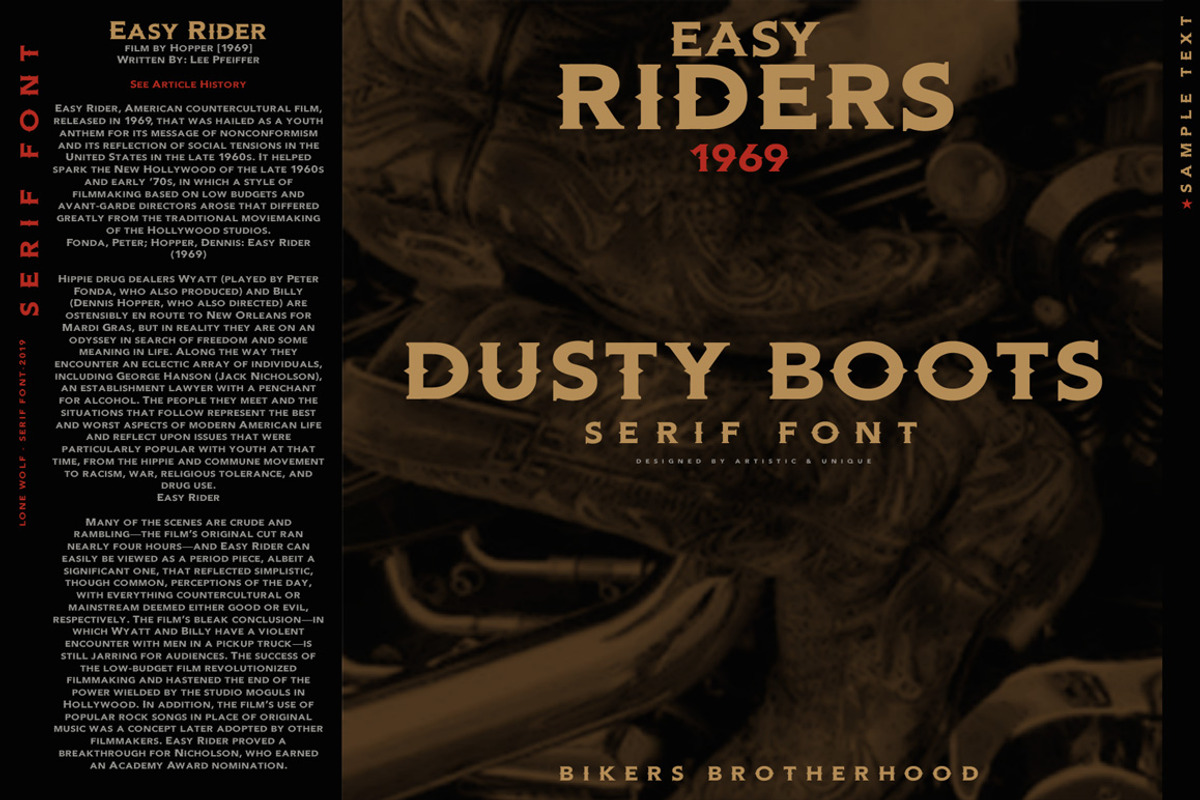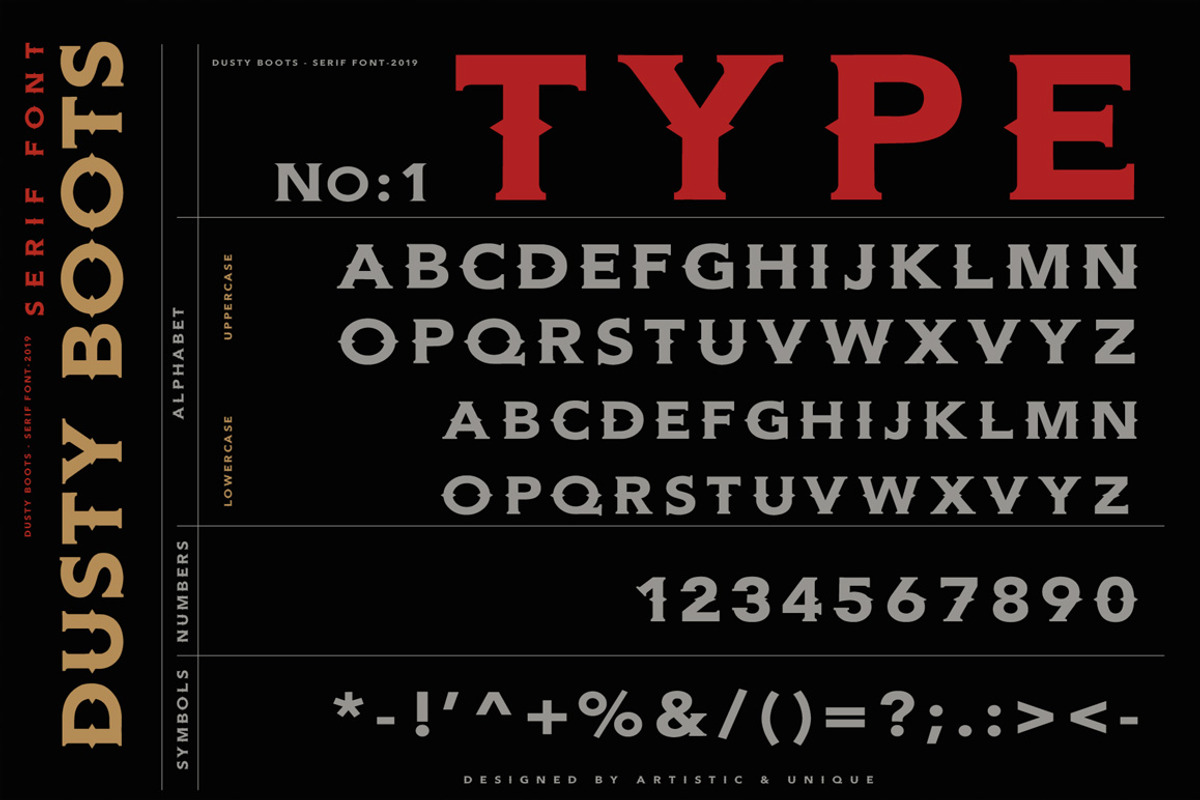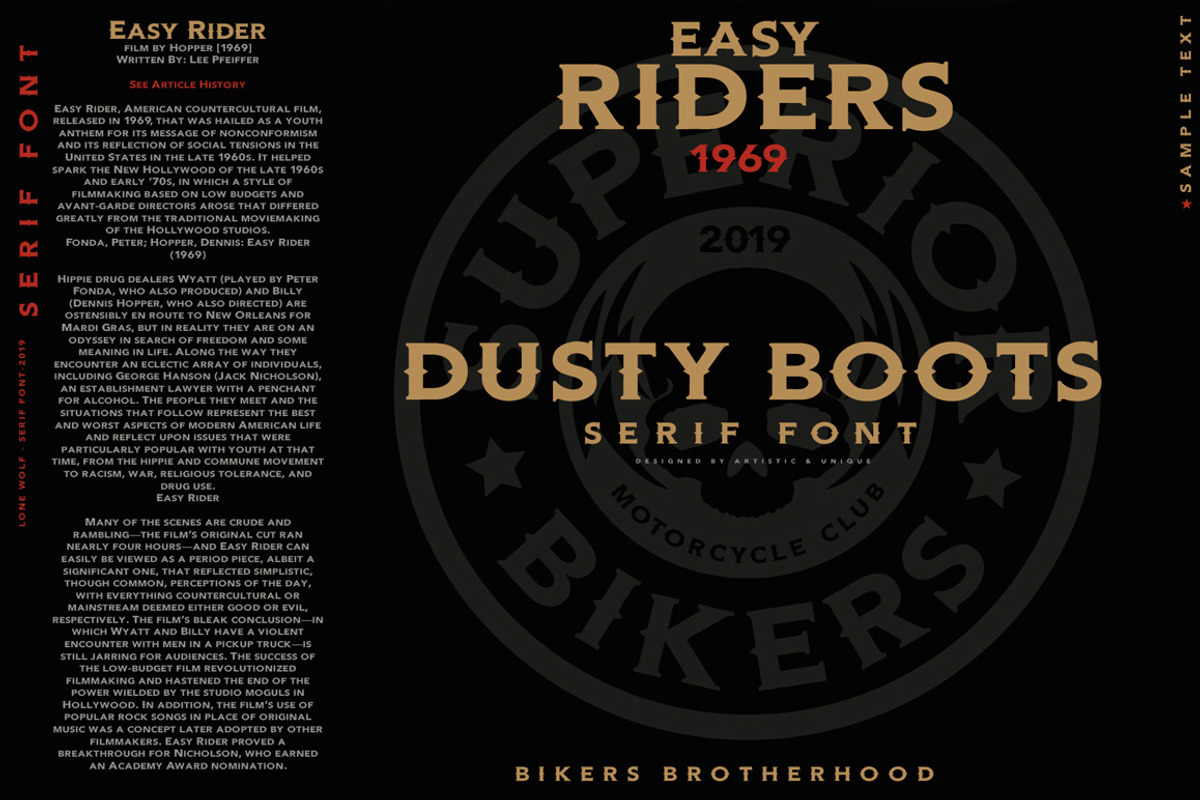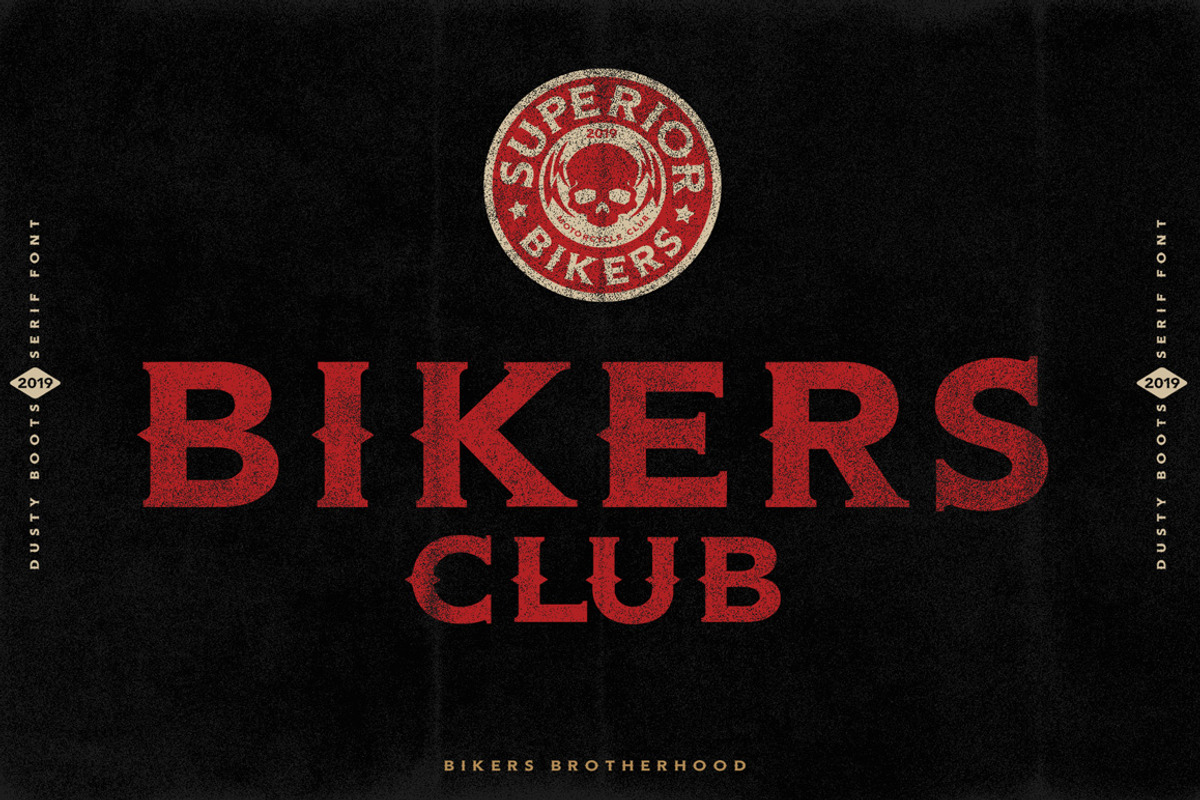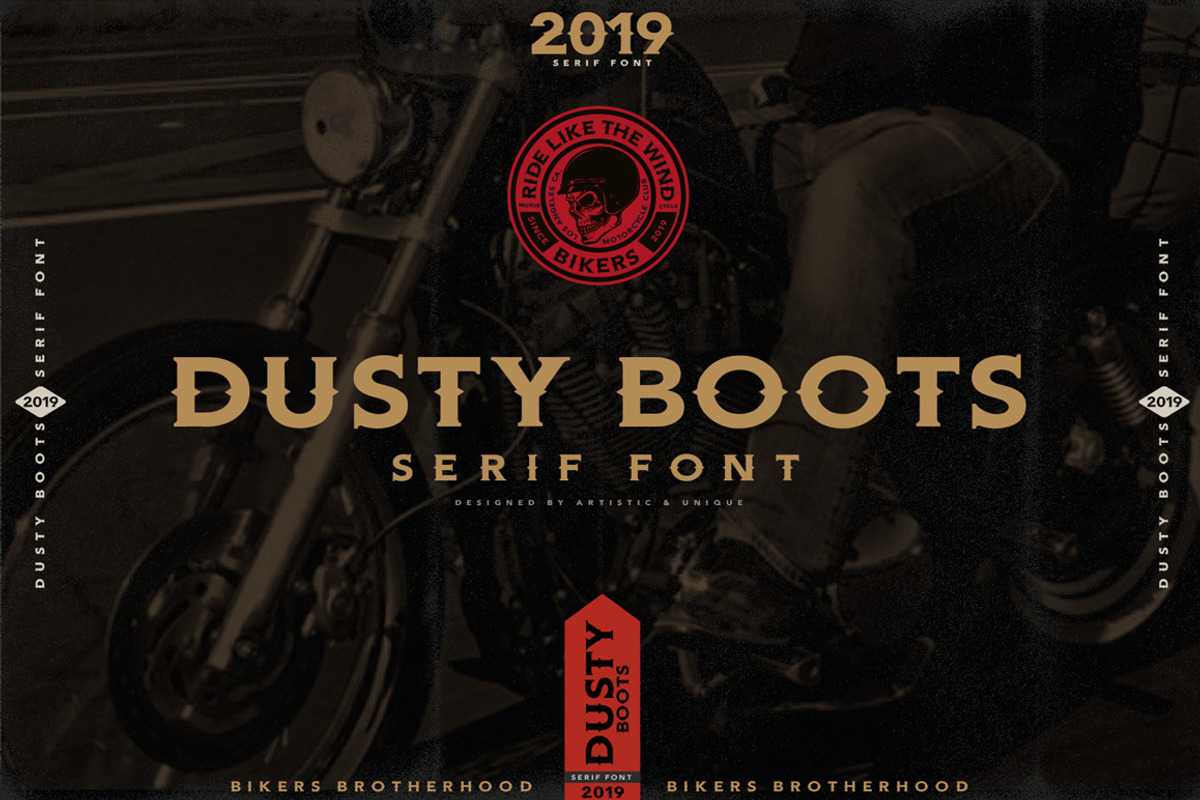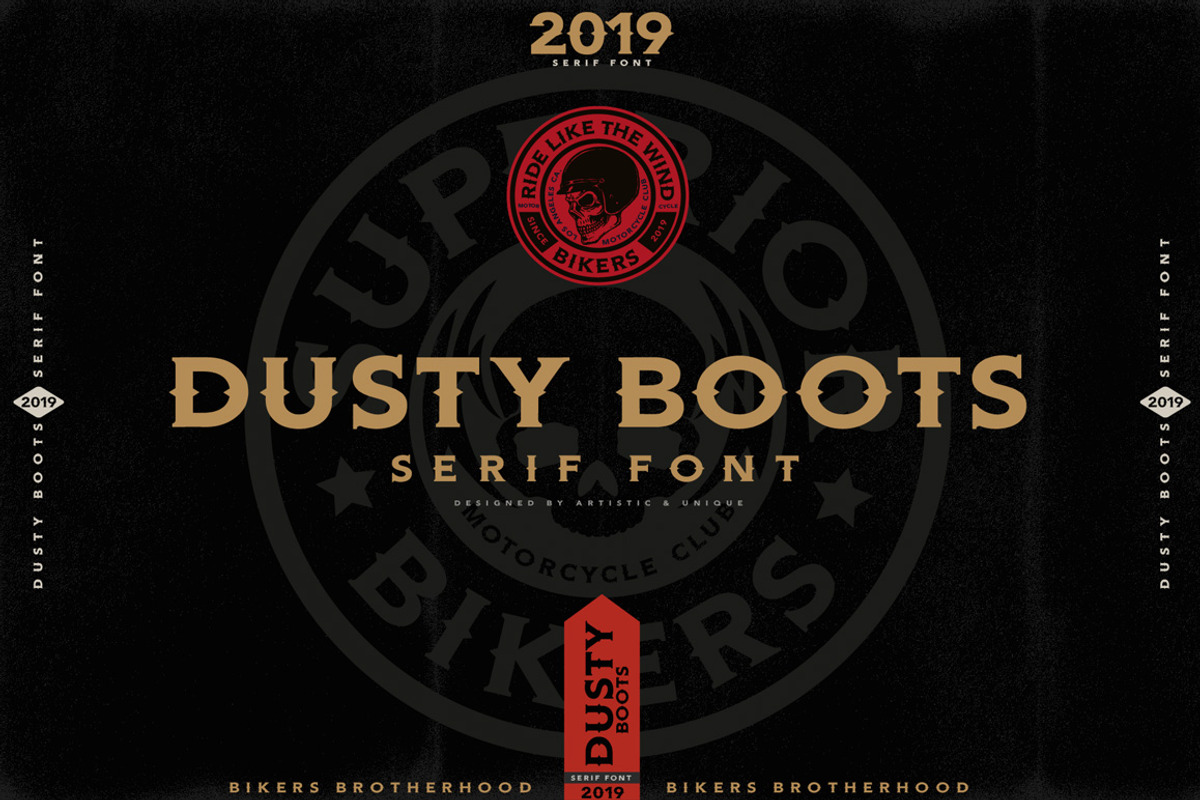
DUSTY BOOTS - Serif font
DUSTY BOOTS Serif font
INTRODUCING DUSTY BOOTS Serif font.
This font is inspired by the motorcycle world and is designed with the lifestyle of bikers who are part of it. Another source of inspiration is the old west and old west fonts.
The connection between the two worlds; a horse rider also had dusty boots, a motorcycle ( iron horse ) rider also had dusty boots. :)
Font strength, sharp corners represent the challenging and dangerous world of motorcycle riders.
A biker boots are dusty because drive on long roads. Always lasts too long.
This description inspired my favorite motorcycle world and the lifestyle of the bikers and I named this font DUSTY BOOTS.
With this font you can create your unique designs. You can use this font for various purposes. such as logo, t-shirt, posters, lable, letterhead, book cover and etc.
- Uppercase typeface
- Lowercase typeface
DUSTY BOOTS - Serif font by Artistic & Unique fits naturally into Branding, posters, packaging, typography.